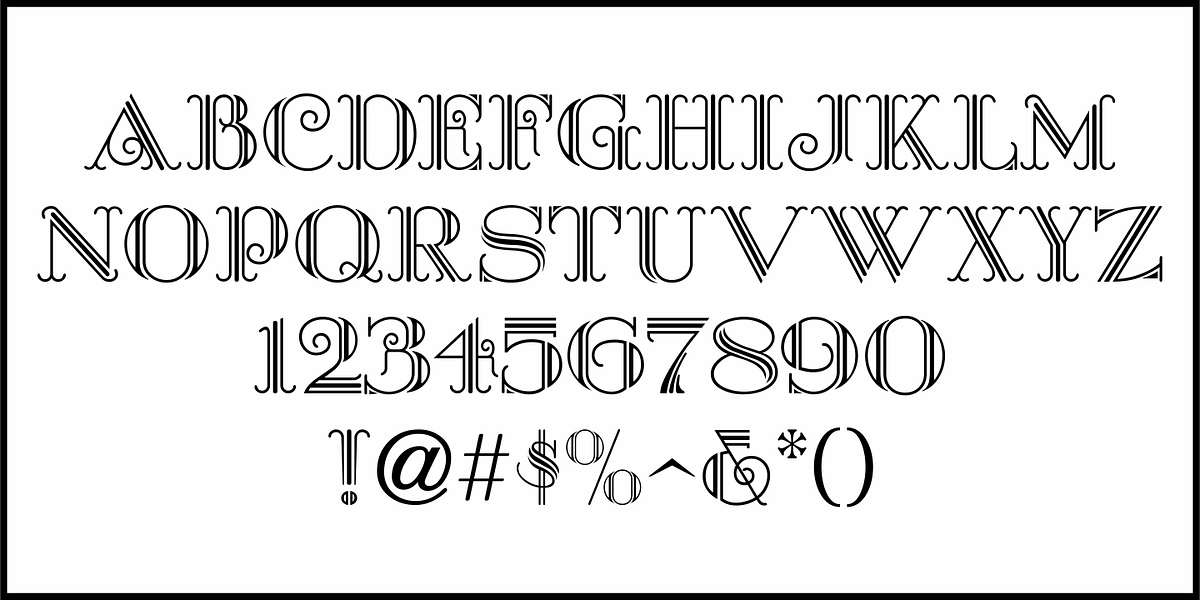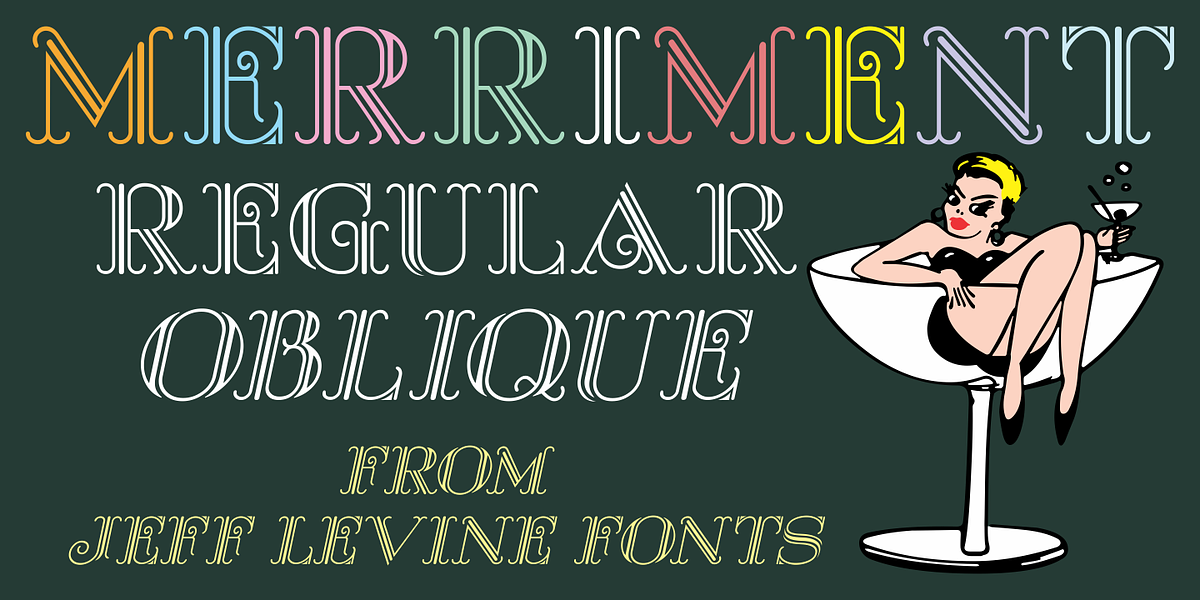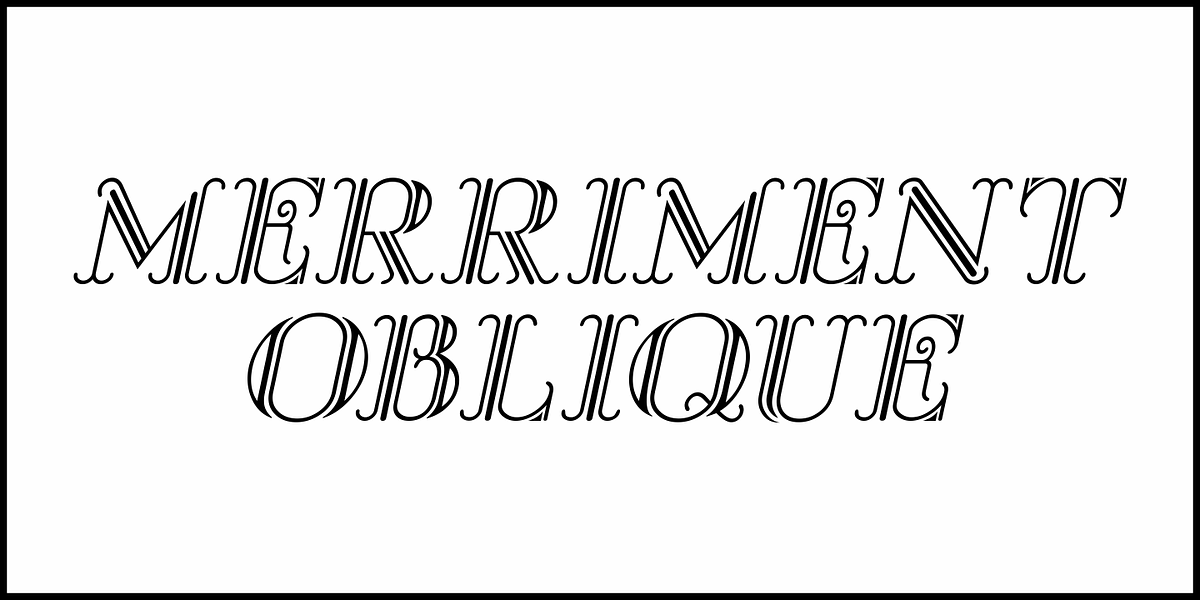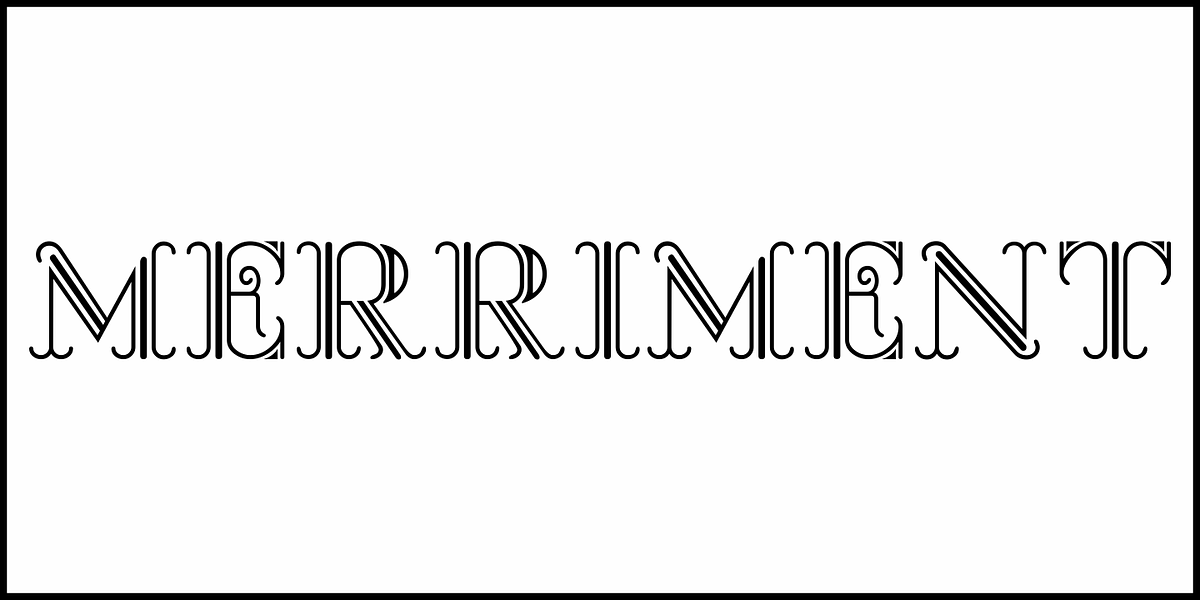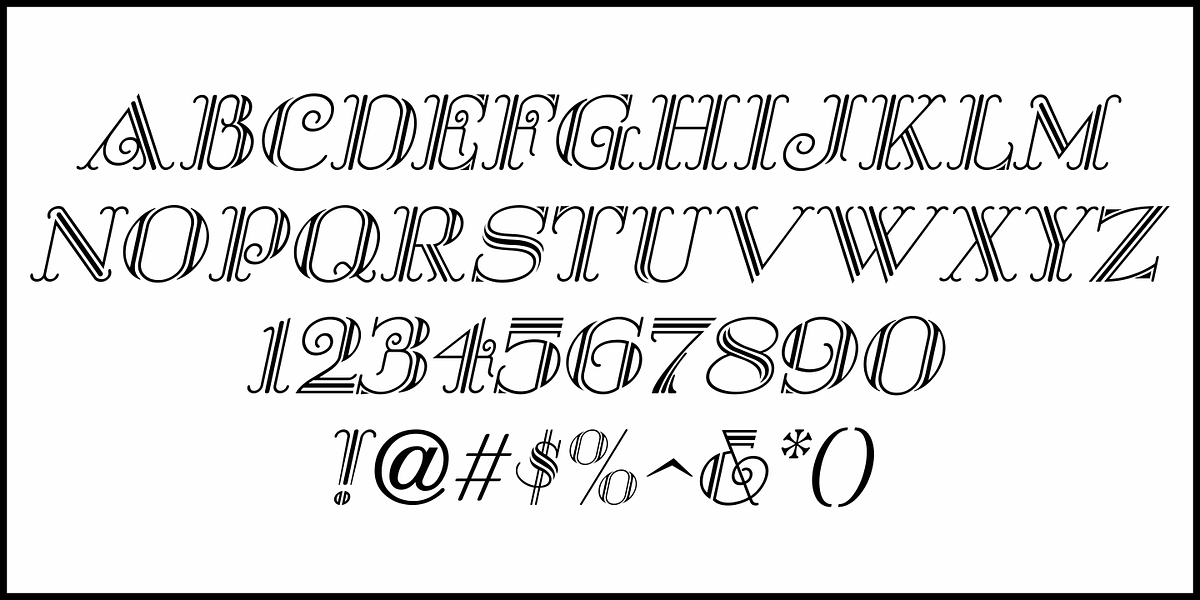
Merriment JNL
Within the pages of the 10th edition of the Speedball Lettering Book (1927) is an alphabet called “Vanitie”.
This had been redrawn digitally as Merriment JNL, and is available in both regular and oblique versions.